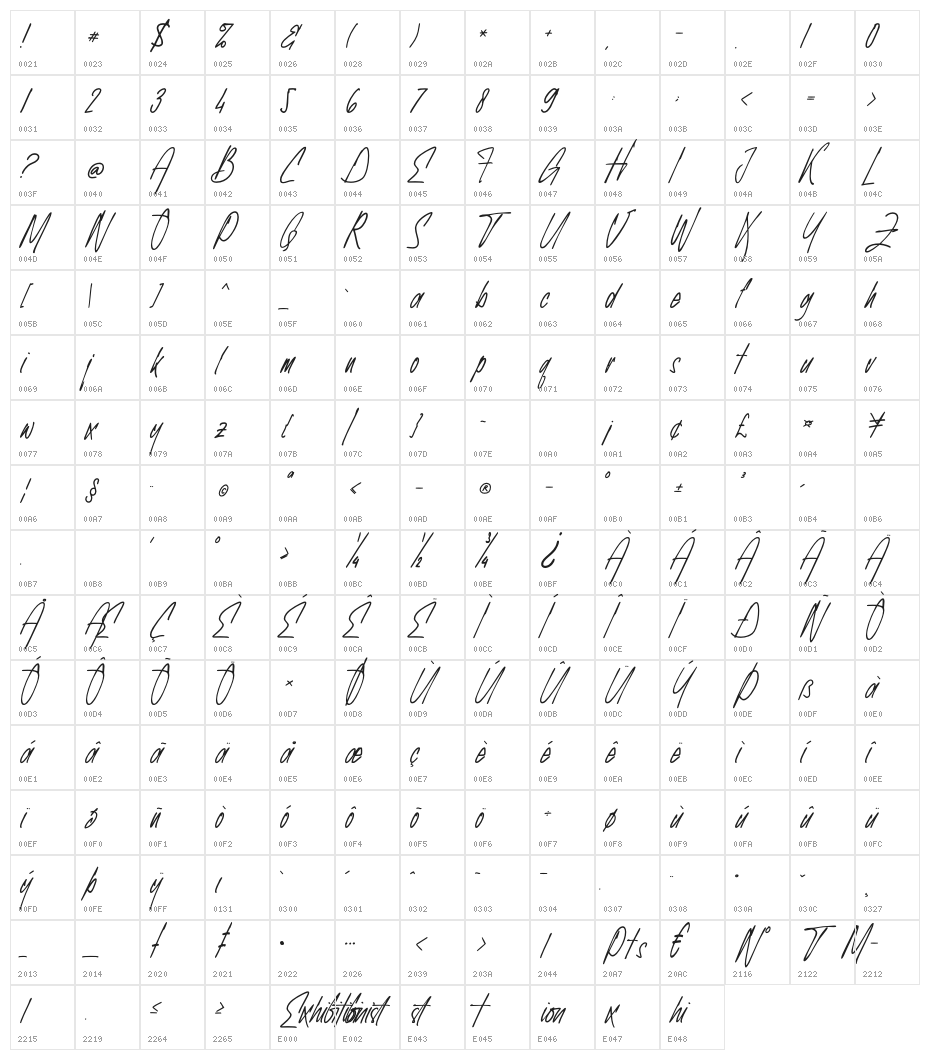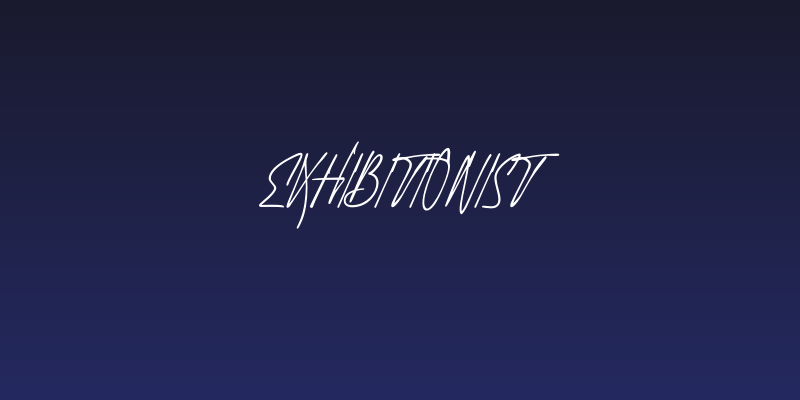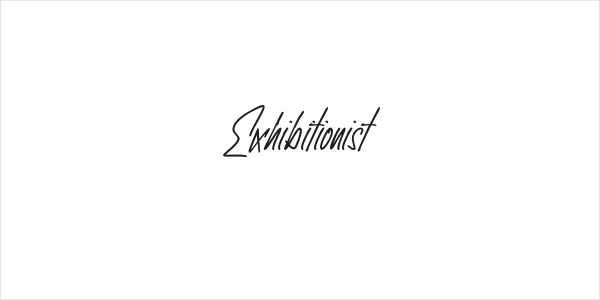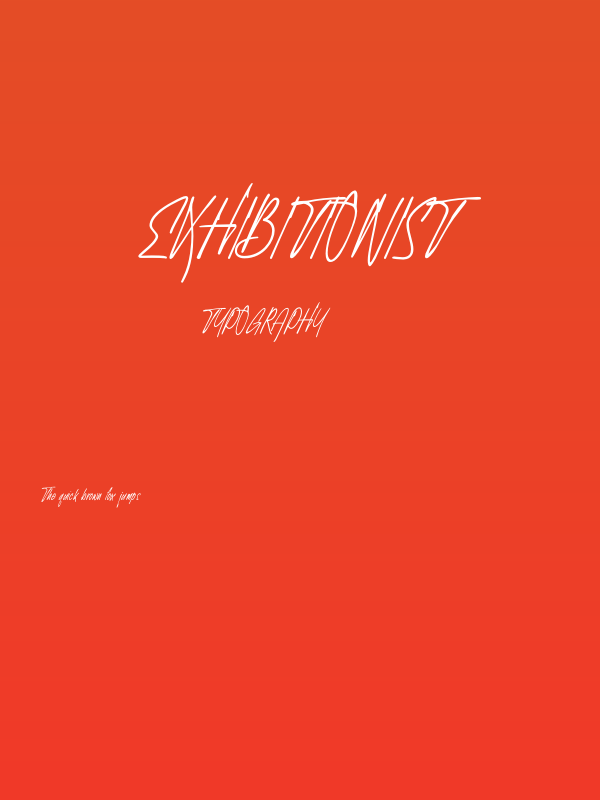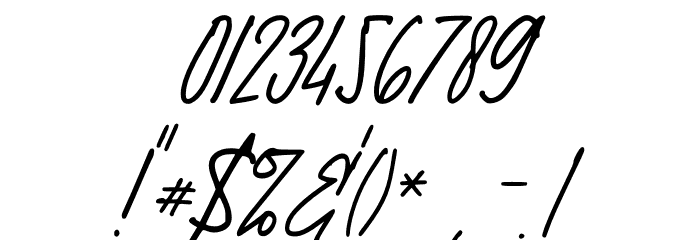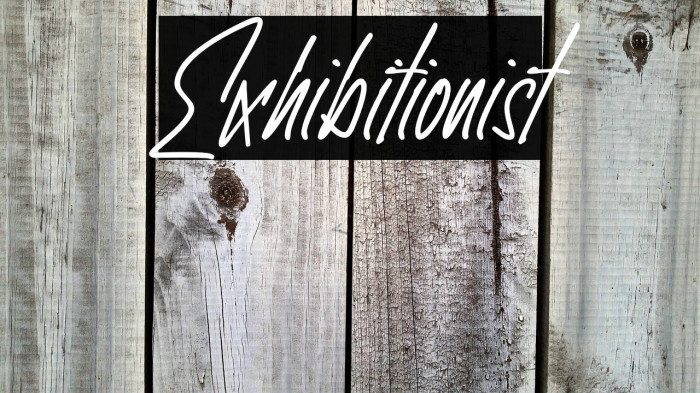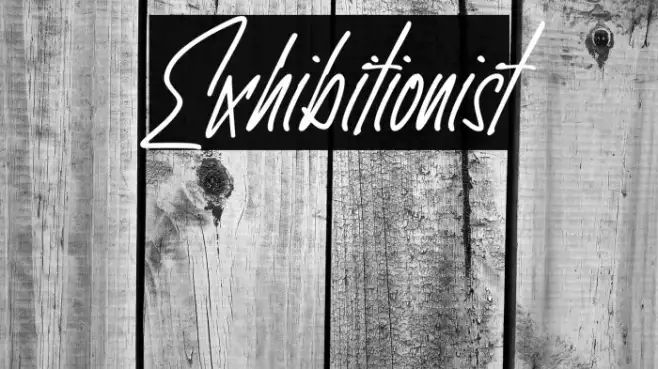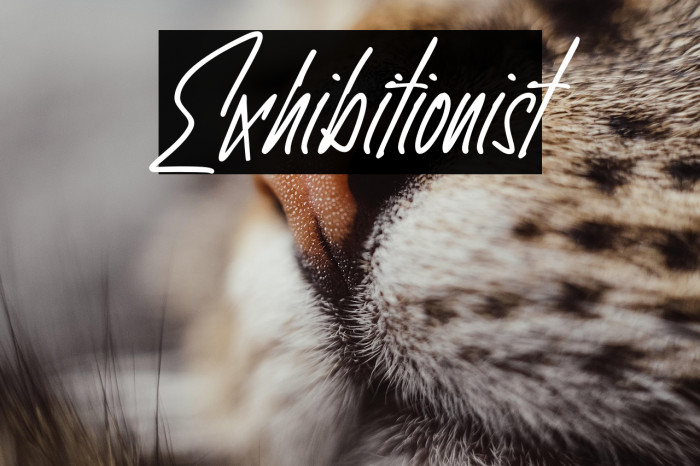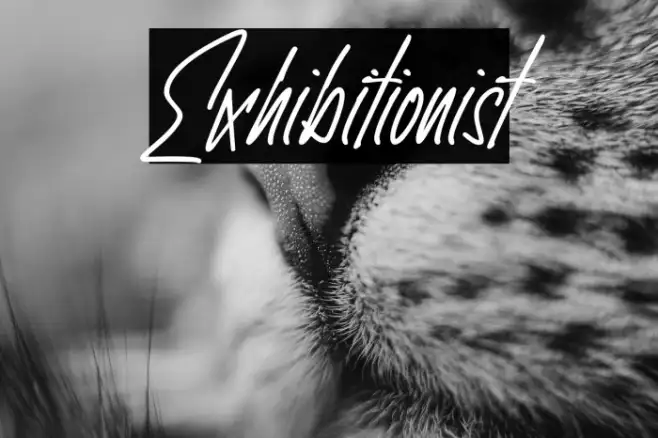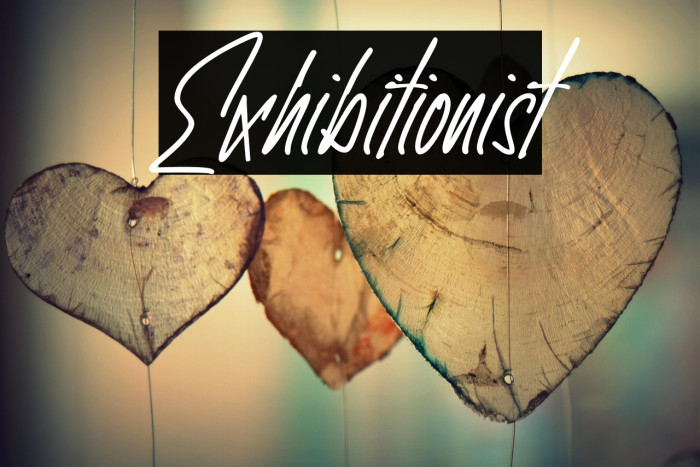
Exhibitionist Font
Exhibitionist Description
This font exudes a dynamic and expressive style, characterized by its fluid, handwritten appearance. The letters are elongated and slightly slanted, giving a sense of movement and energy. The uppercase letters are particularly tall and narrow, while the lowercase letters maintain a consistent flow, enhancing readability despite the script-like design. The numbers and special characters follow the same aesthetic, ensuring uniformity across all glyphs. This font's unique style makes it stand out, ideal for projects that require a personal touch or a creative flair. Its artistic nature is perfect for capturing attention and conveying a sense of individuality.